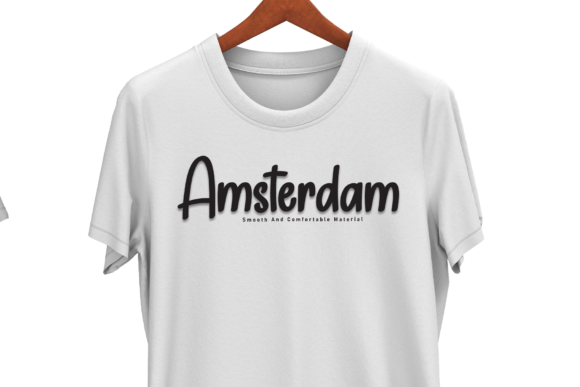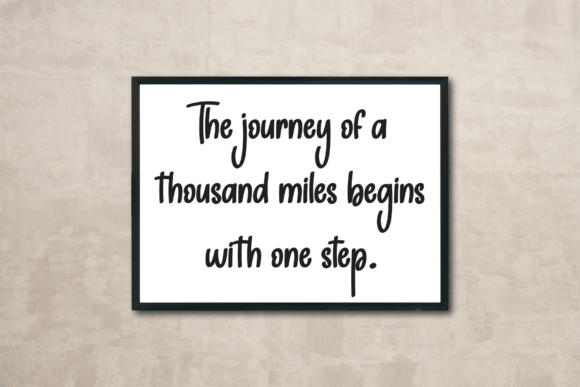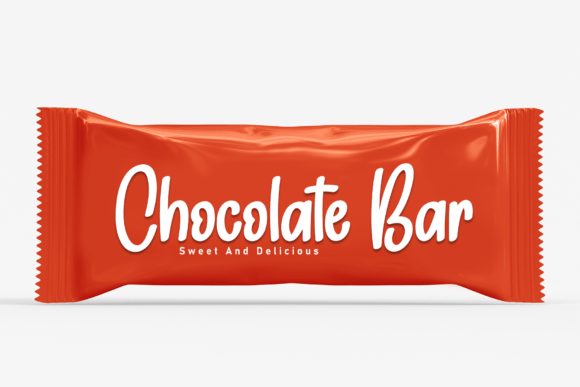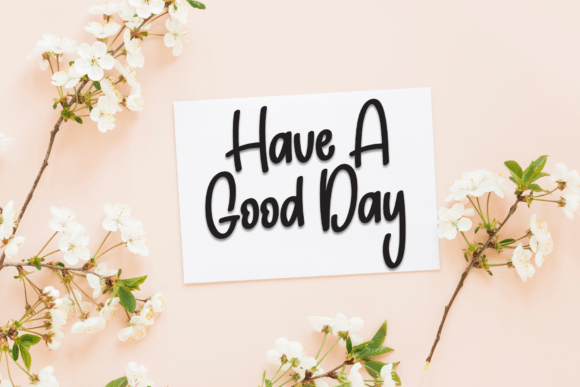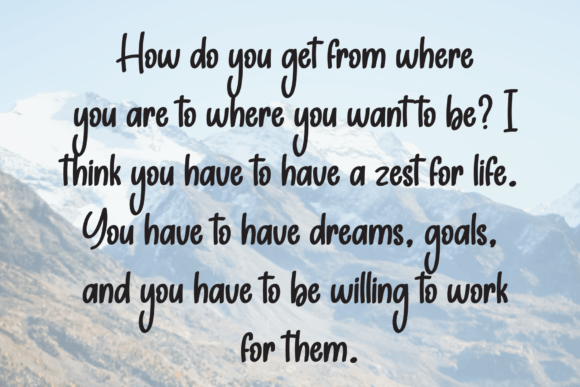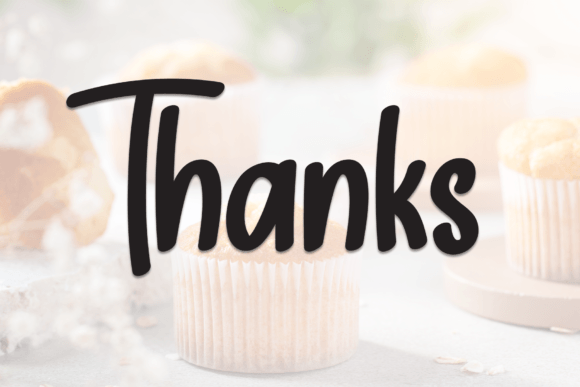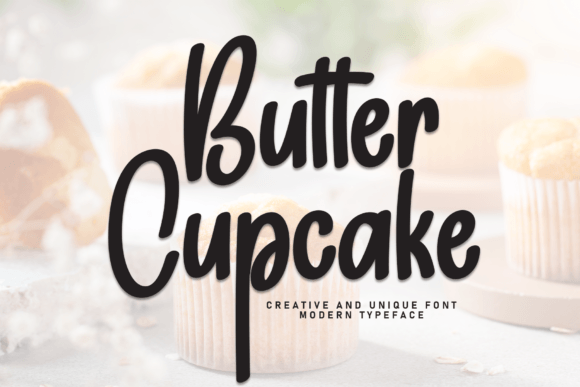
Introducing Butter Cupcake Font: The Sweetest Addition to Your Design Collection
Are you tired of using the same old fonts in your design projects? Look no further! We’re thrilled to introduce Butter Cupcake Font, a delightful handwritten display font that’s sure to add a touch of whimsy and fun to any endeavor. With its jovial and friendly vibe, this font is perfect for designers and crafters looking to infuse their work with a dash of personality.
The Charm of Handwritten Scoop
Butter Cupcake Font is a beautifully crafted font that boasts a charming handwritten scoop. Its unique and irregular strokes give it a personal touch that’s hard to resist. The font’s design is inspired by the warmth and friendliness of handwritten script, making it perfect for projects that require a human touch. Whether you’re designing wedding invitations, greeting cards, or social media graphics, Butter Cupcake Font is sure to make your work stand out.
Unleashing Whimsy and Fun
One of the standout features of Butter Cupcake Font is its ability to add a fun-loving vibe to any design project. The font’s playful and carefree nature makes it perfect for designers who want to create work that’s engaging, lively, and youthful. Whether you’re designing for a children’s brand, a crafty business, or a creative agency, Butter Cupcake Font is sure to bring a smile to your audience’s faces.
The Perfect Pick for Creative Projects
So, what makes Butter Cupcake Font the perfect pick for your creative projects? Here are just a few reasons:
- Wedding Invitations: Add a touch of romance and whimsy to your wedding invitations with Butter Cupcake Font. Its elegant and playful design makes it perfect for couples who want to set the tone for a fun and memorable wedding celebration.
- Greeting Cards: Give your greeting cards a unique and personal touch with Butter Cupcake Font. Whether you’re designing birthday cards, thank-you cards, or holiday cards, this font is sure to make your recipients feel special.
- Design Projects: From social media graphics to branding materials, Butter Cupcake Font is the perfect addition to any design project. Its versatility and charm make it easy to pair with other fonts and design elements.
Brimming with Personality
Butter Cupcake Font is more than just a font – it’s a design statement. With its bold and playful personality, it’s sure to add a buoyant touch to any design project. Whether you’re a designer, crafter, or DIY enthusiast, this font is sure to inspire your creativity and bring your ideas to life.
Key Features of Butter Cupcake Font
- Handwritten display font: Unique and irregular strokes give Butter Cupcake Font a personal touch.
- Jovial and friendly vibe: Perfect for designers who want to add a touch of whimsy and fun to their work.
- Whimsical design: Inspired by the warmth and friendliness of handwritten script.
- Versatile: Suitable for a wide range of design projects, from wedding invitations to social media graphics.
Get Ready to Fall in Love with Butter Cupcake Font
If you’re looking for a font that will add a touch of personality and whimsy to your design projects, look no further than Butter Cupcake Font. With its charming handwritten scoop, jovial and friendly vibe, and versatile design, this font is sure to become a favorite in your design collection. So why wait? Download Butter Cupcake Font today and start creating designs that are as sweet as they are memorable!